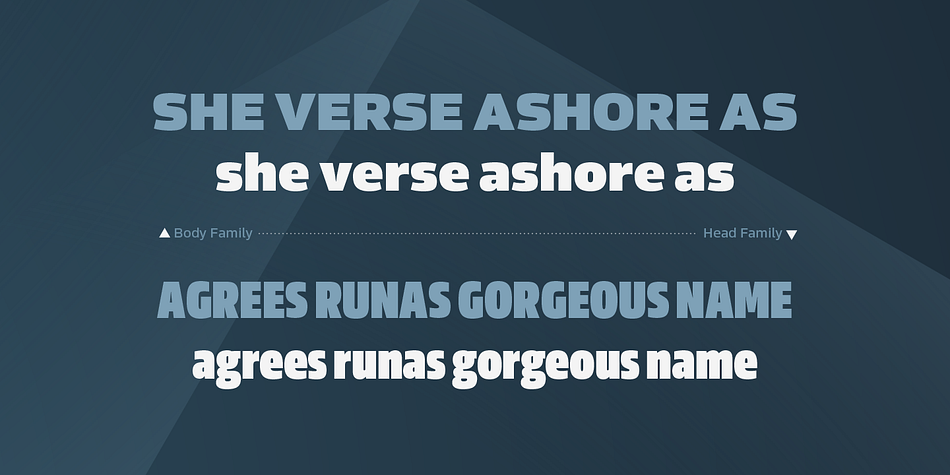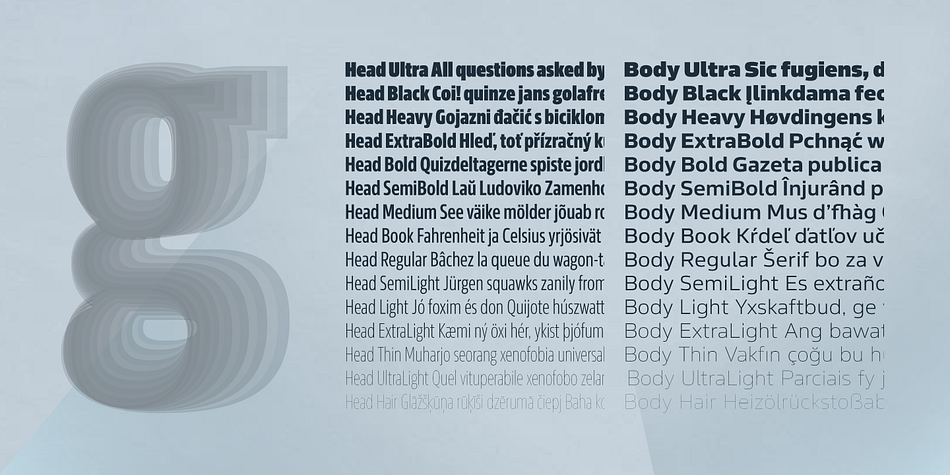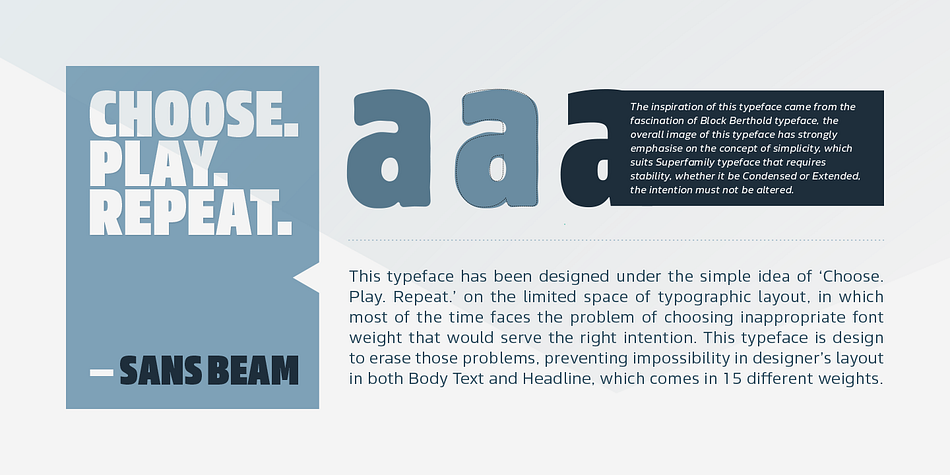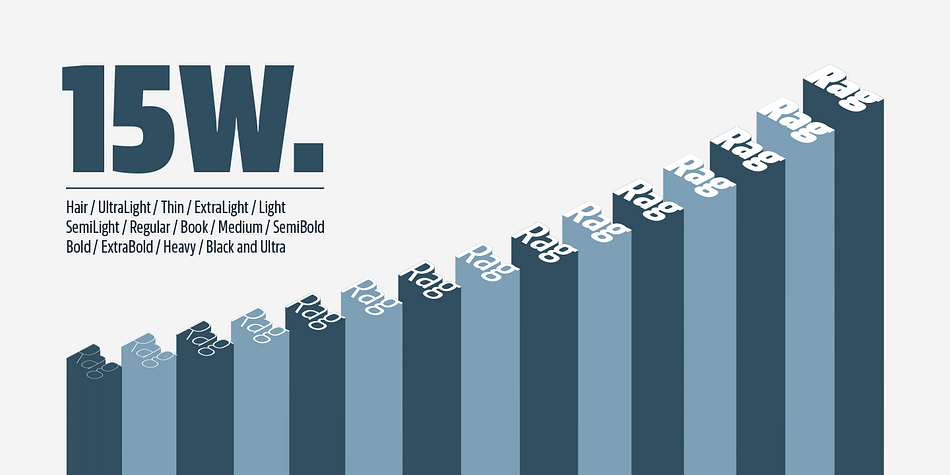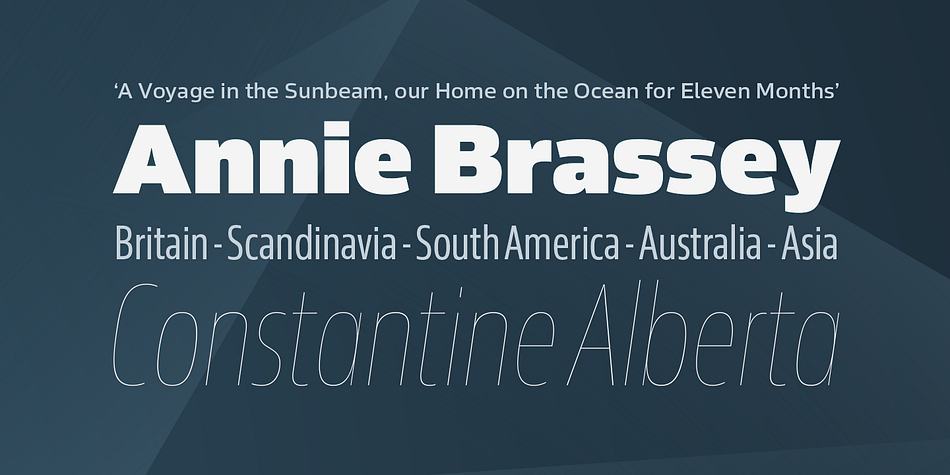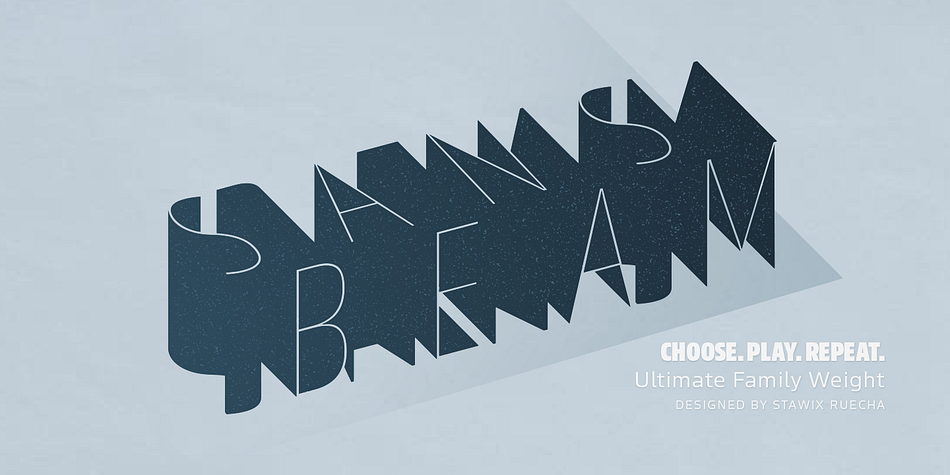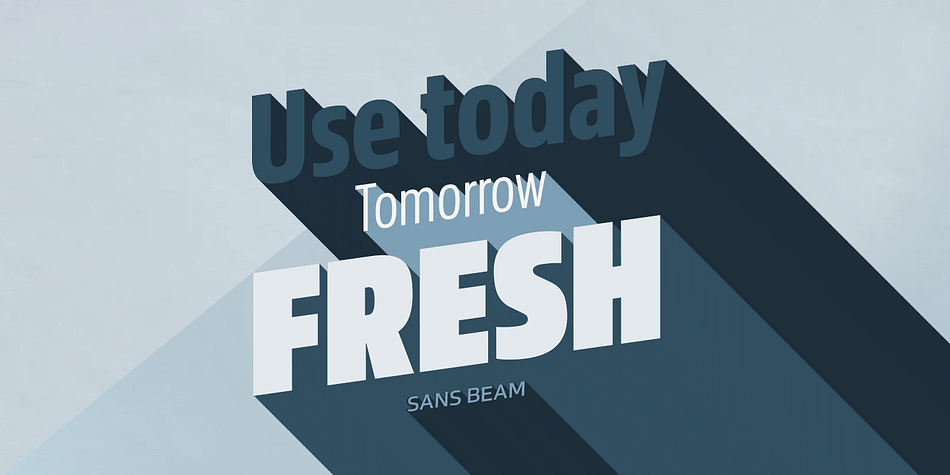
Designed by Stawix Ruecha, Sans Beam is a sans serif and display sans font family. This typeface has sixty styles and was published by Stawix.
After releasing Amsi in 2015, this year Sans Beam is now ready to launch with a design that supports many different uses from Headline to Body text. It is also specifically designed to be compatible with the other font families of Stawix Foundry.
This typeface has been designed with the simple idea of ‘Choose. Play. Repeat.’ in mind. In the limited space of typographic layout, designers face the problem of choosing the appropriate font weight that would serve the right intention. Sans Bean is designed to erase those problems, offering two version suited for Body Text and Headline. Each version features 15 different weights and matching italics.